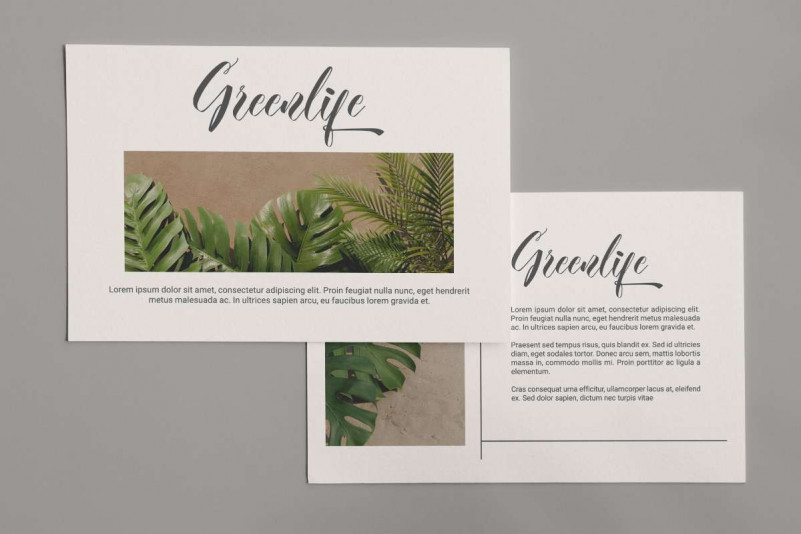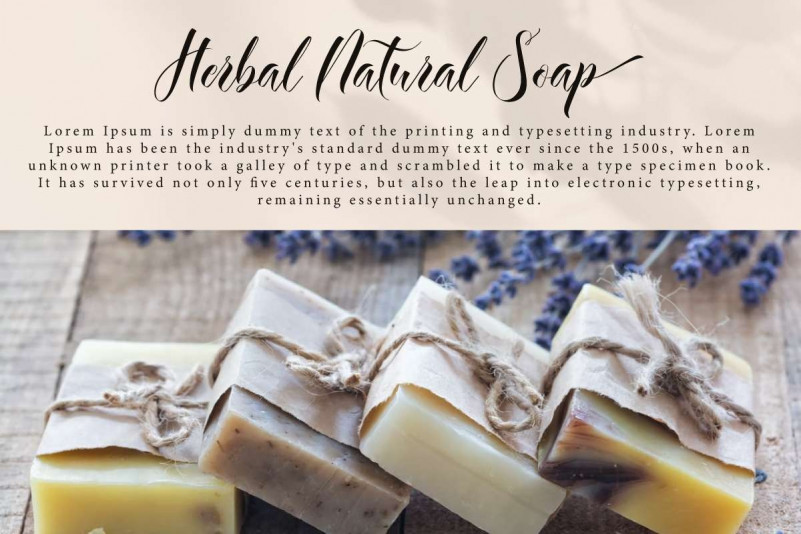
Wearingbelle Font
Wearingbelle Script Font is a gorgeous script font with calligraphy style. This font is balanced by thick and thin waving lines that make it look so beautiful and still easy to read. This font has a stunning appearance making it suitable for many industries, such as event or wedding organizer, fashion, festival, florist, homeware, movie, printing, publishing, restaurant, salon, and more!
Wearingbelle Font includes a full set of Uppercase and Lowercase Letters, Numerals, and large range of punctuation. This font also has Ligature and Alternate characters that will beautify your various projects, such as brand logo, business card, catalog, invitation, label, menu, poster, product packaging, quotes, title, website, etc.